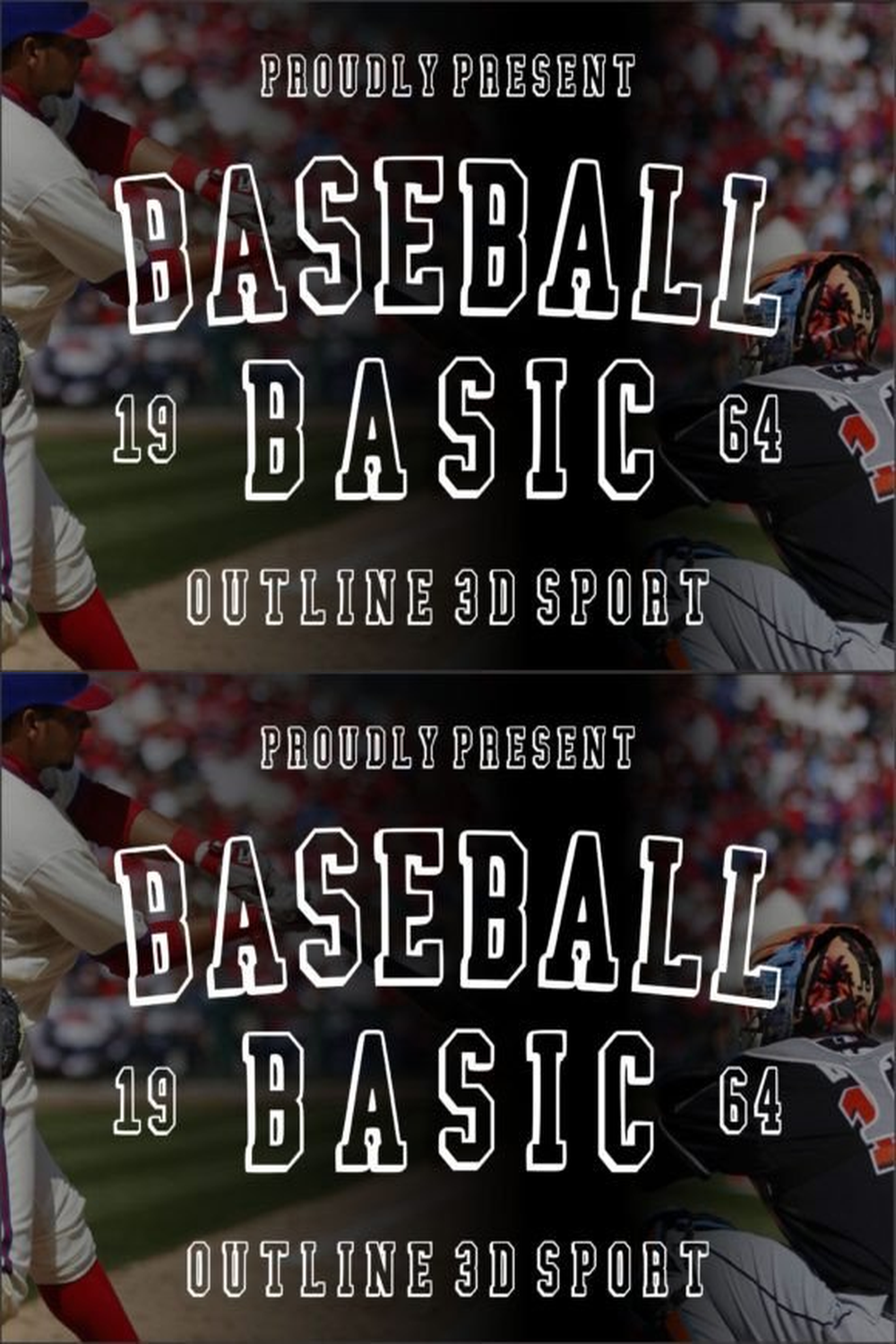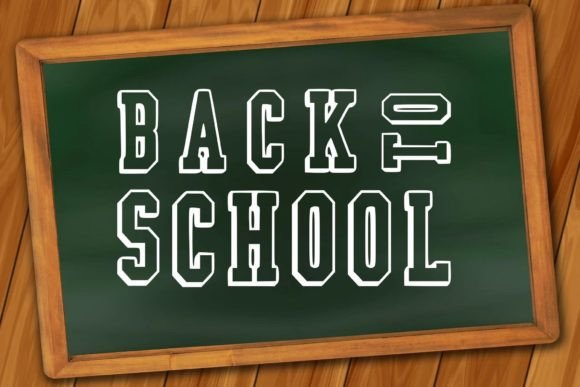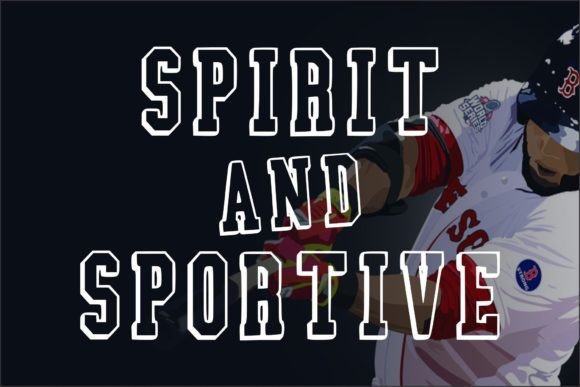
Baseball Basic Font
About the Baseball Basic Font
Get ready to be inspired by Baseball Basic Font, a fresh and dynamic typeface for modern creators. Baseball Basic is an outline font sports classic display font, inspired by college typography. This bold and dynamic font captures the energy and excitement of sports. It features a strong and commanding look, with thick lines and sharp edges that convey power and athleticism.
Baseball Basic Font Usage Examples